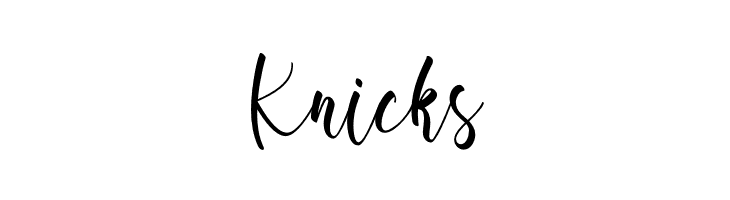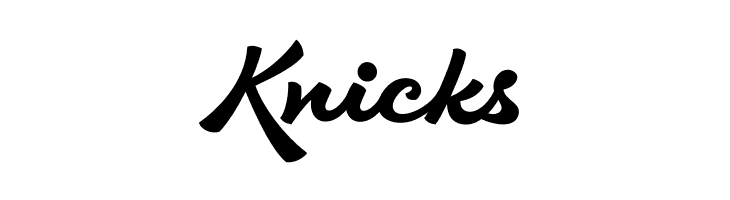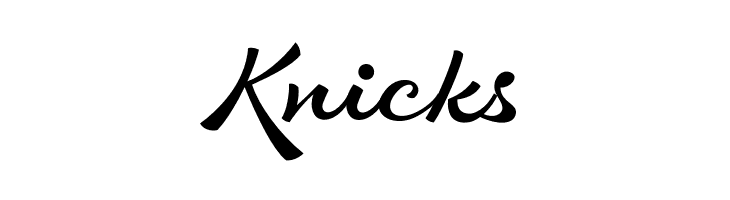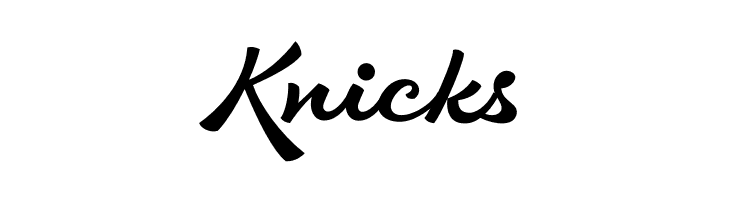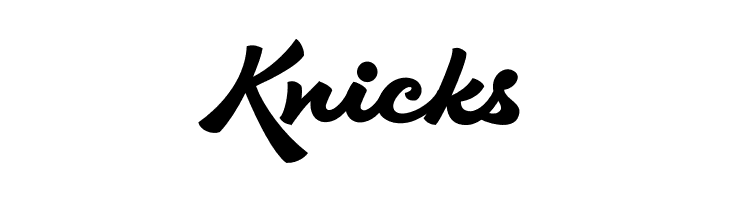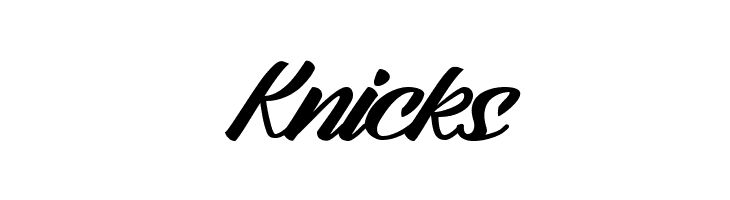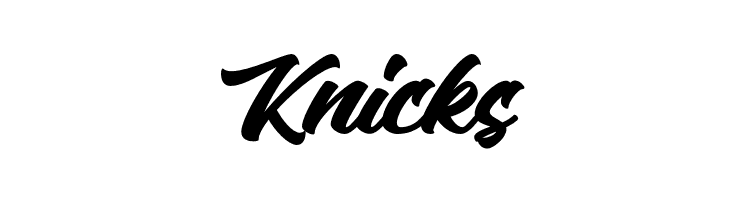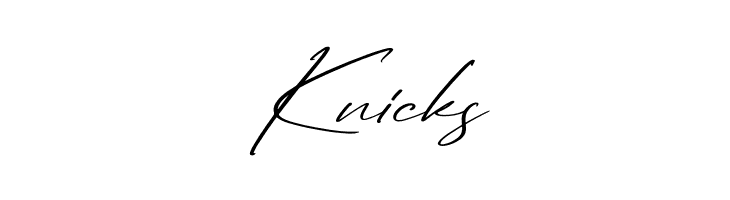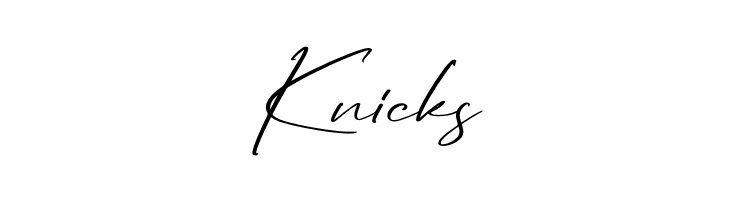
• ARK Misha Demo Script
A flowing, cursive script font with elegant, interconnected characters.
• Arlen Script DEMO
A bold, flowing script font with elegant cursive letterforms and decorative flourishes.
• Arnolde Script PERSONAL USE Regular
A bold, flowing script font with elegant curves and dynamic strokes.
• Arolse Belmonteria Script
Elegant handwritten script font.
• Arolse Belmonteria Script Italic
Elegant, flowing script font with a handwritten style.
• Aromi Script
A flowing, cursive script with elegant loops and swashes.
• Aromia Script Black
A bold, expressive script font with interconnected characters and strong strokes.
• Aromia Script Bold
A bold, flowing script font with interconnected letters and a dynamic style.
• Aromia Script Medium
A lively, flowing script font with elegant, cursive letterforms.
• Aromia Script Thin
A graceful script font with flowing, connected letters and elegant flourishes.